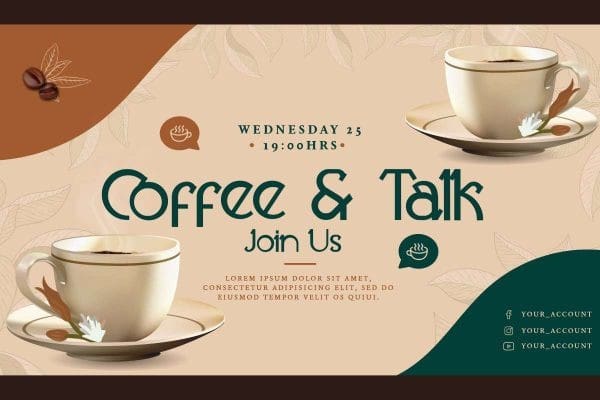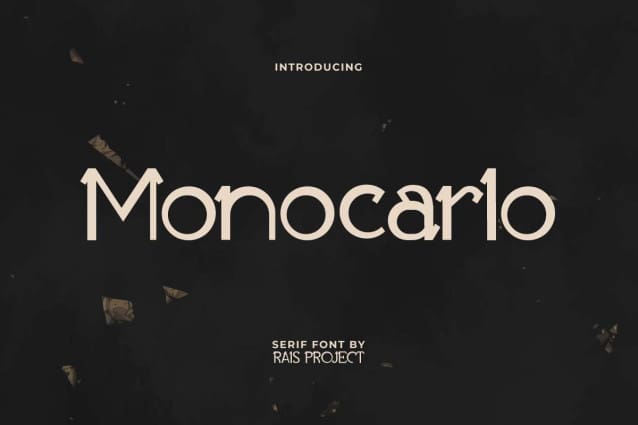
Monocarlo Font
Monocarlo Font is a uniquely stylish sans serif display font with a weird yet luxurious look. This font has extra short line at the end of the letters and gives it an interesting feature. It will work well in many designs, such as brand image, cover, custom design, greeting card, invitation, label, menu, poster, product packaging, quote, signage, stamp, web, and more!
Monocarlo Font includes a full set of Uppercase and Lowercase Letters, Numerals, and large range of Punctuation. This font will be suitable for various industries, such as accessories, advertisement, barber shop, cafe, event organizer, fashion, photography, printing, publishing, etc.